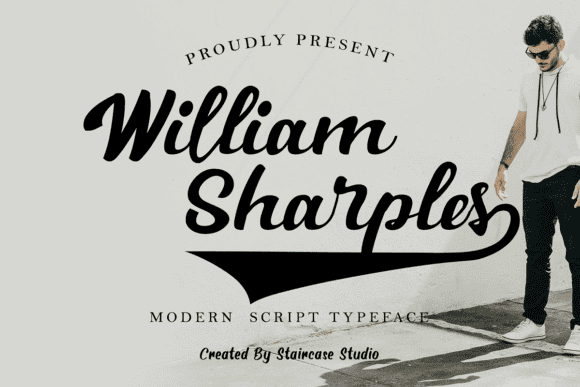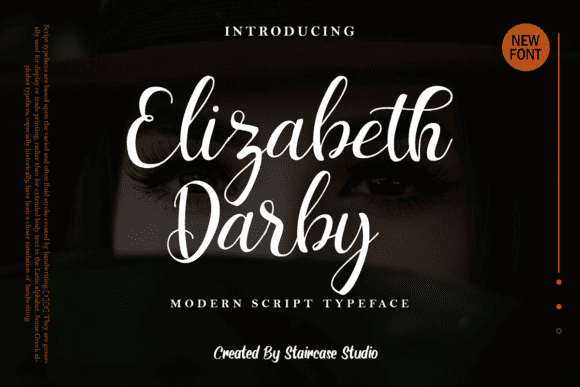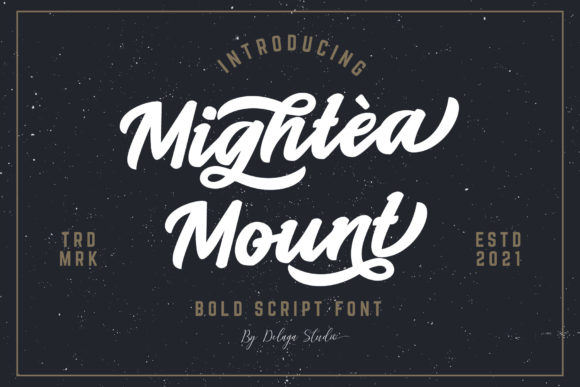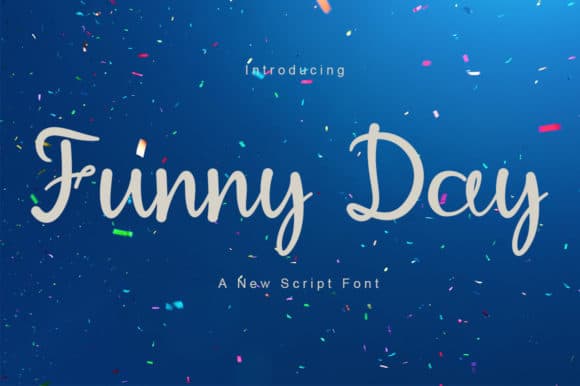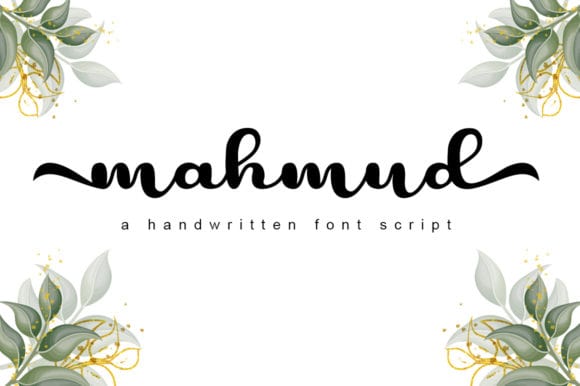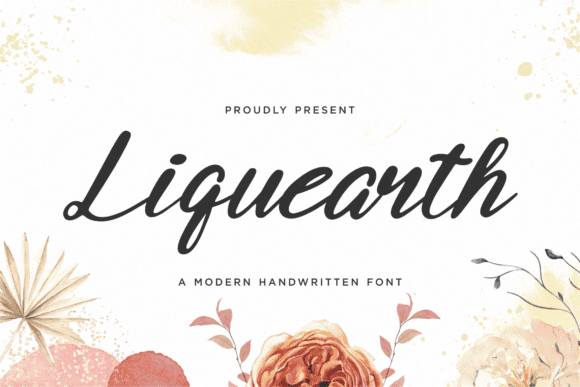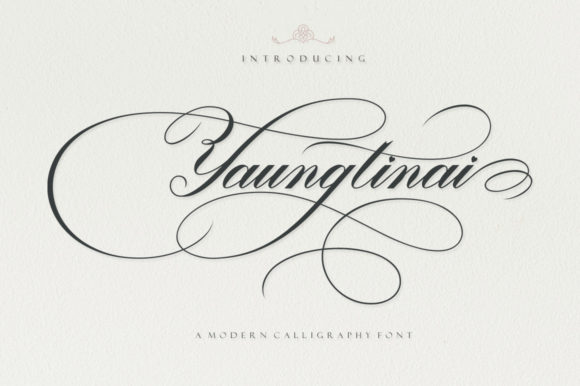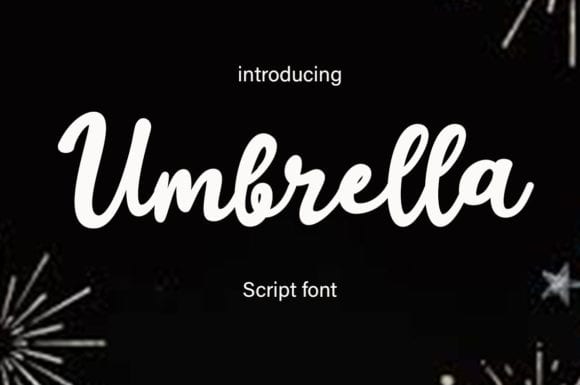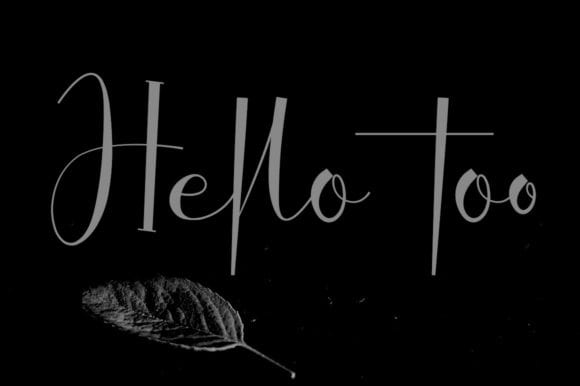
William Sharples is a modern script font. A collection of letters and numbers suitable for your most creative projects, including Logotype, Branding Design, Logo Design, Digital Lettering Arts, T-Shirt/Apparel, Poster, Magazine, Signs, Advertising Design, and so much more.
Elizabeth Darby is a modern script font created with a collection of elegant characters to suit your most exquisite designs. This typeface works amazingly on branding projects, logo designs, digital lettering arts, t-shirt/apparel, posters, magazines, signs, advertising designs, and more.
Mightea Mount is a retro and enchanting handwritten font. This versatile script font has a wide spectrum of applications ranging from greeting cards to headlines.
Funny Day is a classic script font carefully created with a touch of elegance. Whether you’re looking for fonts for Instagram or calligraphy scripts for DIY projects, this font will turn any creative idea into a true piece of art!
Mahmud Script is a lovely script font created for invitation cards, food and beverage promotions, flyers, event posters, and other packaged products. This font is PUA encoded, which means you can access all of the glyphs and swashes with ease!
Liquearth feels equally charming and elegant. It looks stunning on wedding invitations, thank you cards, quotes, greeting cards, logos, business cards and every other design which needs a handwritten touch.
Yaungtinai is an elegant script font with flowing characters. Fall in love with its fancy appearance!
Umbrella is a lovely and timeless handwritten font. It is the best choice for creating eye-catching logos, branding, and quotes. Every letter has a unique and beautiful touch, which will make your design come alive!
Hello Too – a fun and entertaining handwritten font that that embodies charm and authenticity in every character. Use this lovely typeface to complement your most creative projects!
Special Ramen is a gorgeous and bold handwritten font, crafted to give your headlines and logotype projects a retro touch. This font is PUA encoded which means you can access all of the glyphs and swashes with ease!